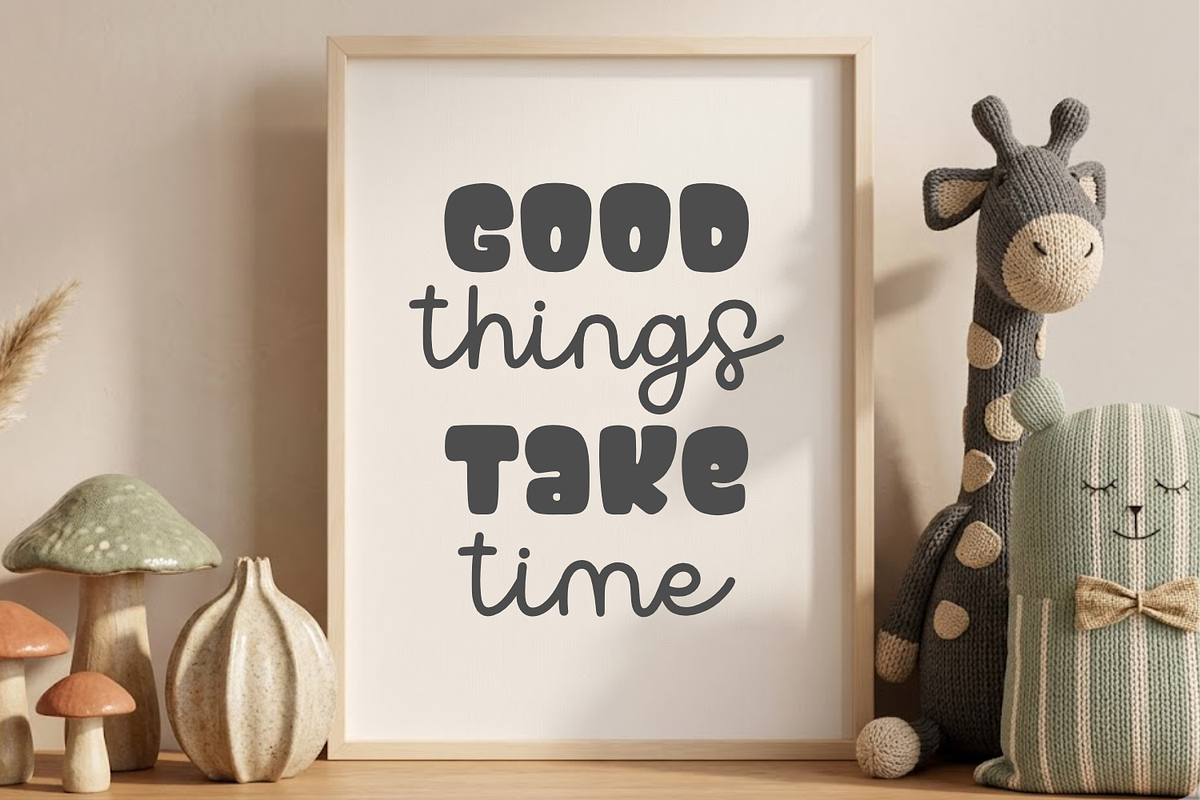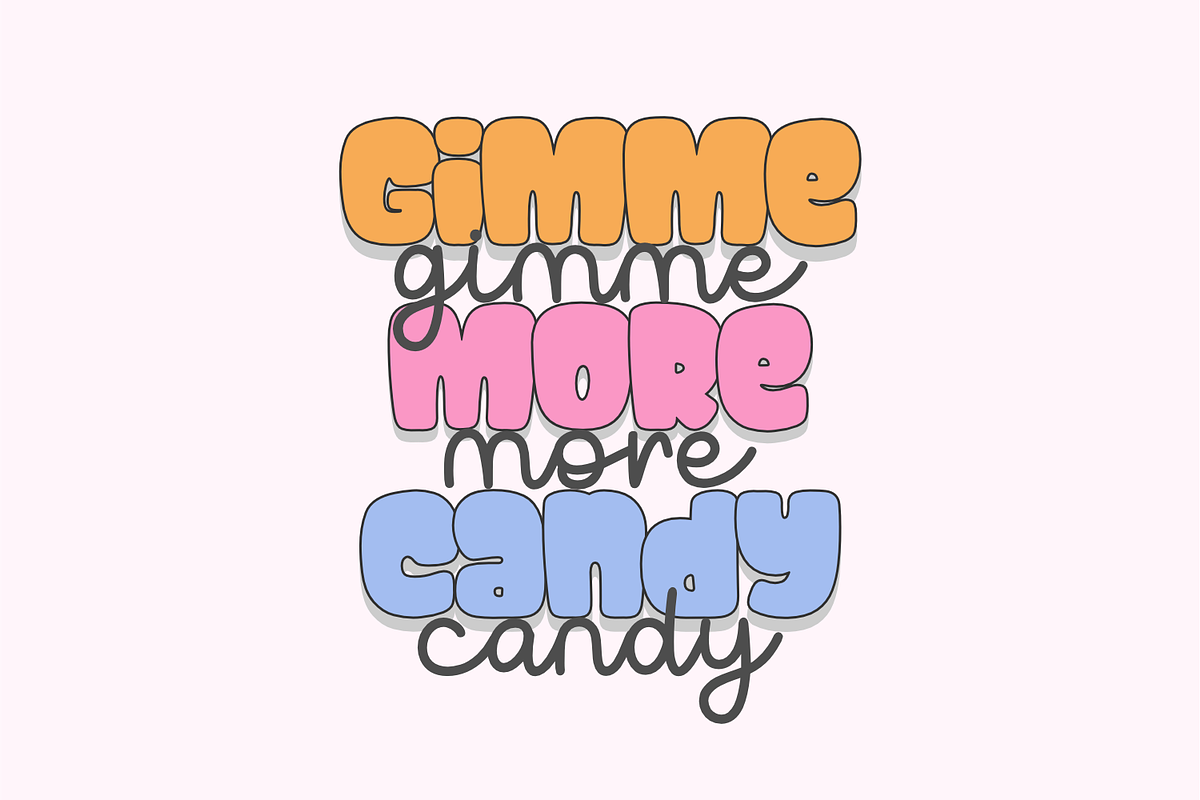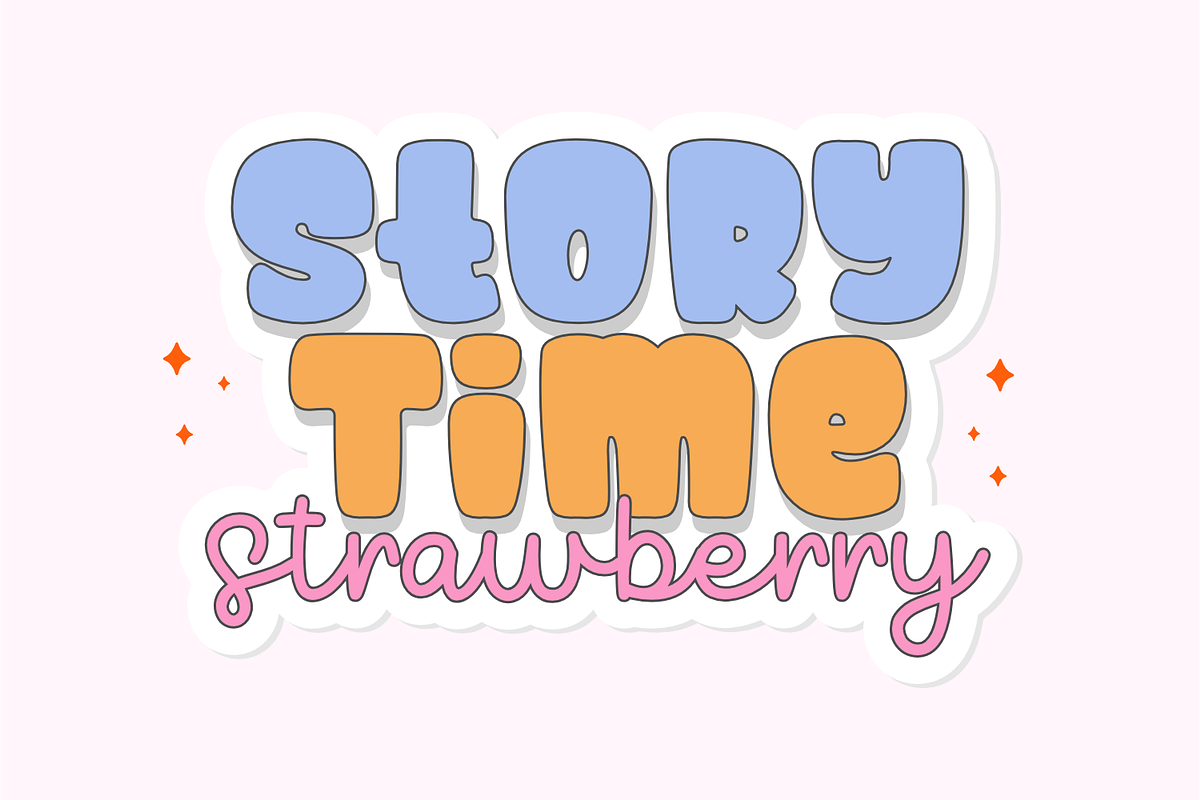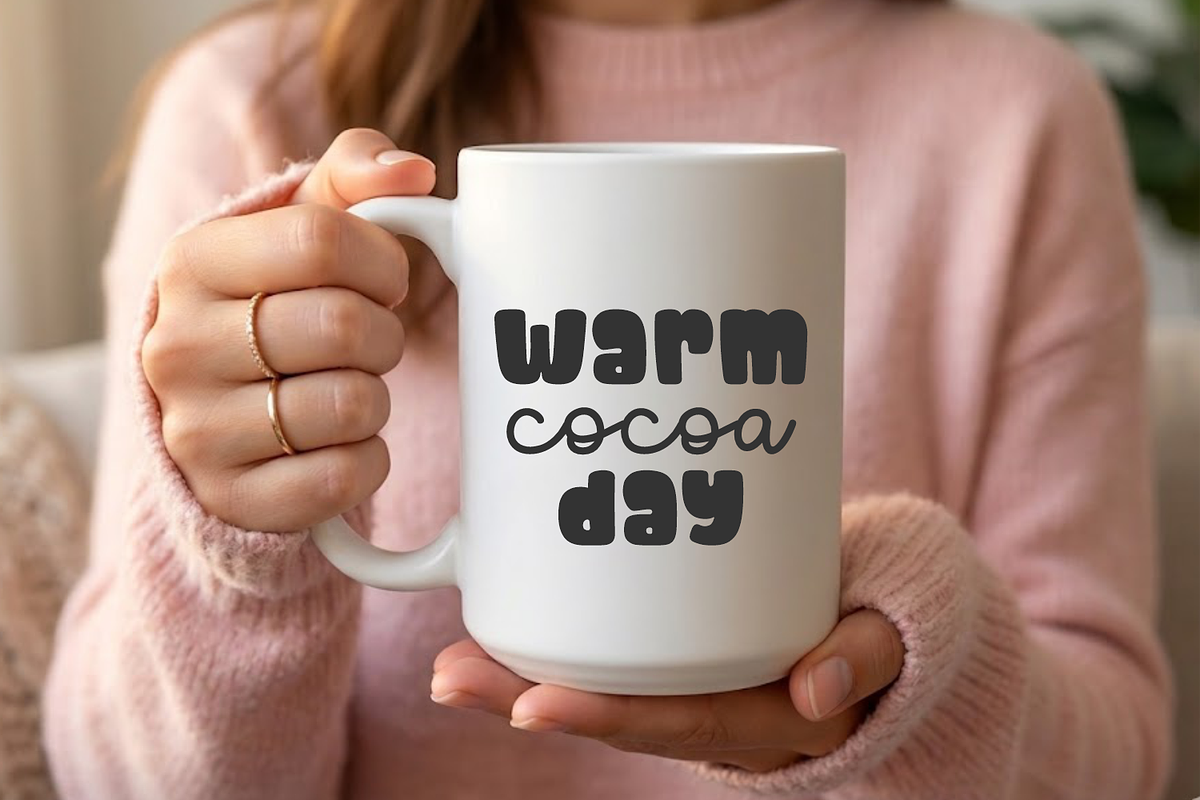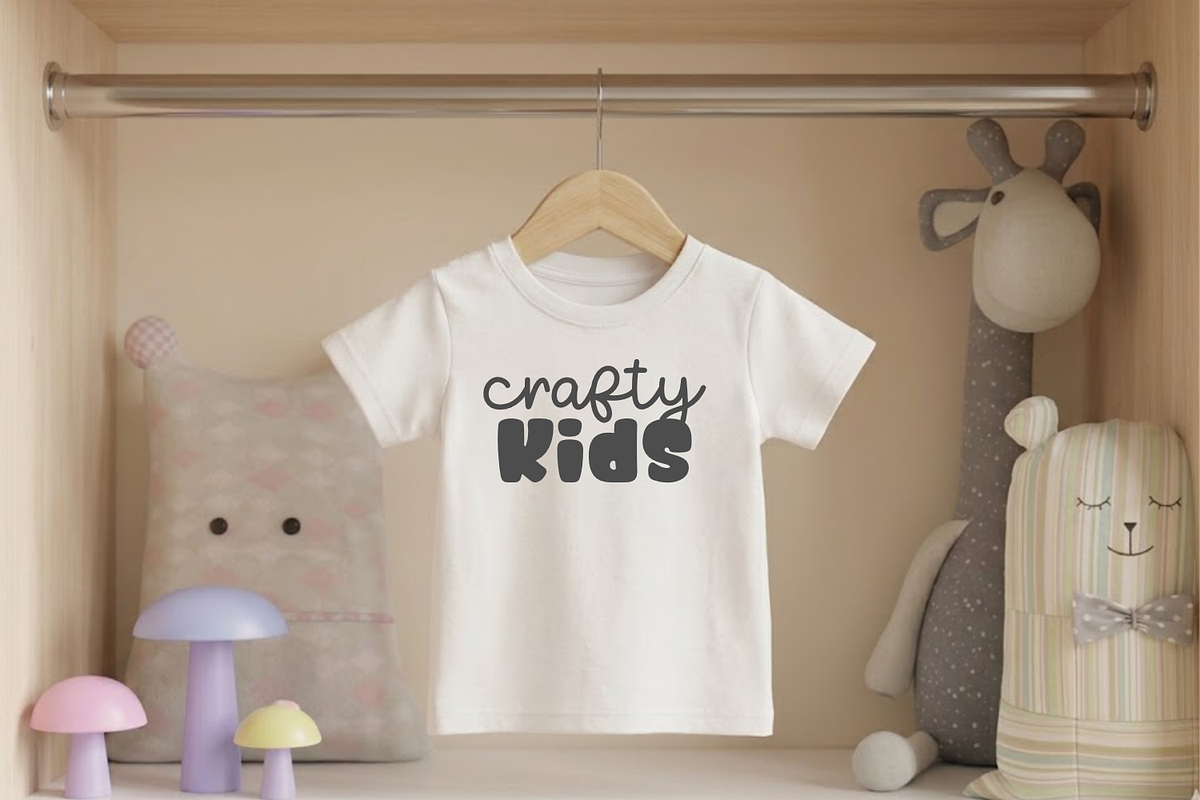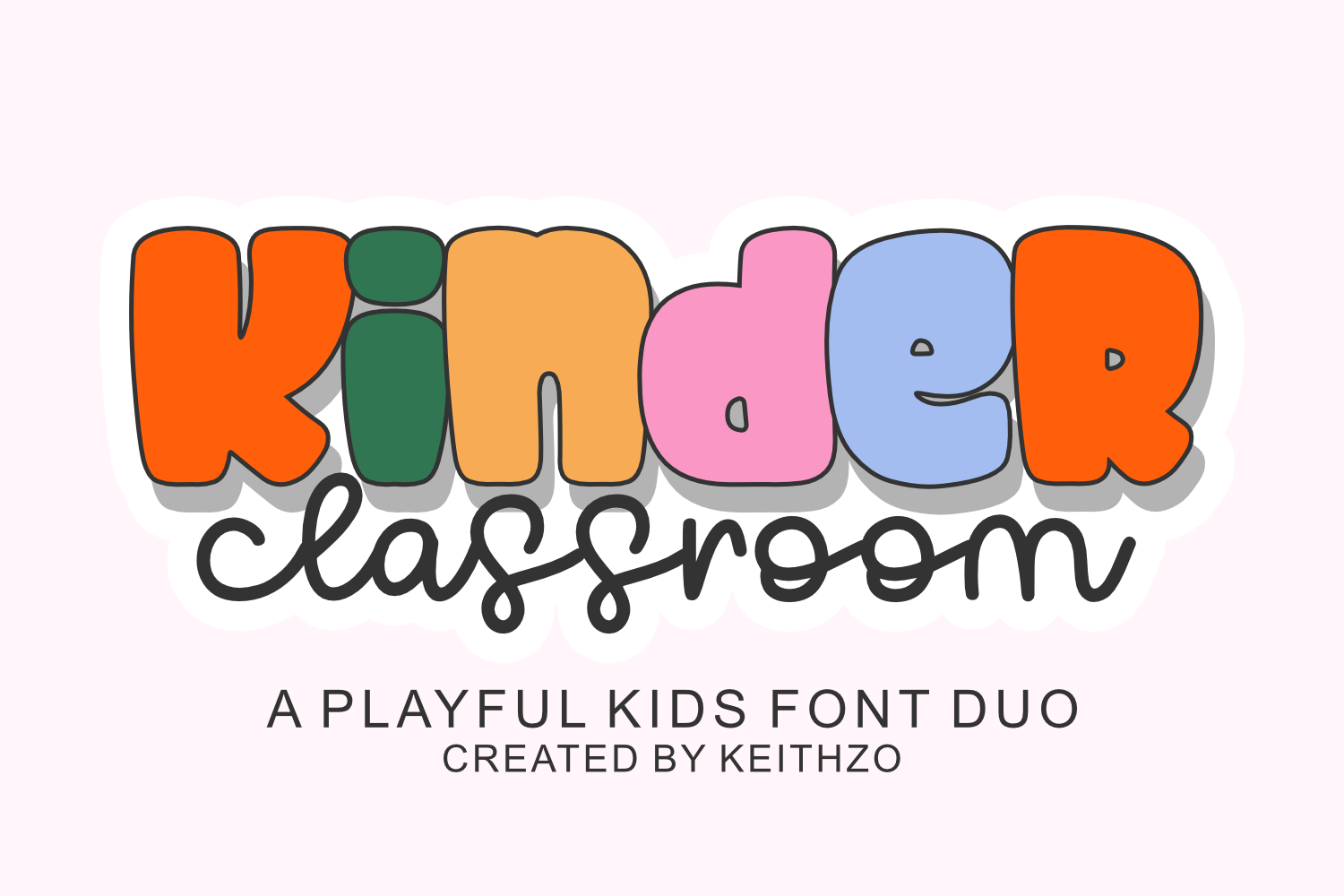
Kinder Classroom - Font Duo
Unleash a wave of charm and vitality with the Kinder Classroom font duo. Imbued with the enchanting essence of childhood, this playful pair is designed to sprinkle joy and imagination onto any canvas. Embodied in each character, you’ll find an irresistible blend of light-hearted wonder, ideal for designers, educators, and parents. The Kinder Classroom font duo isn’t just a font, it’s an invitation to inject a splash of jovial creativity in your every project. Discover how Kinder Classroom can bring your ideas to life with its irresistibly whimsical touch.